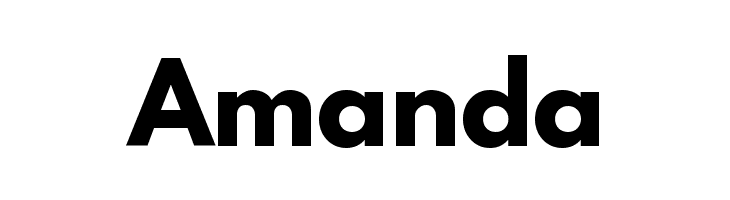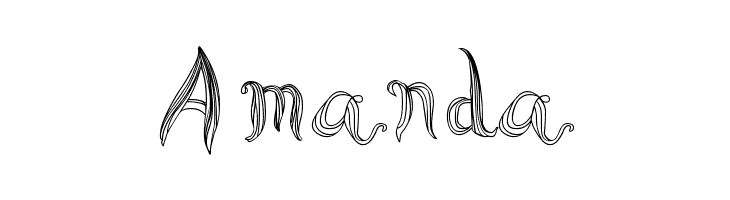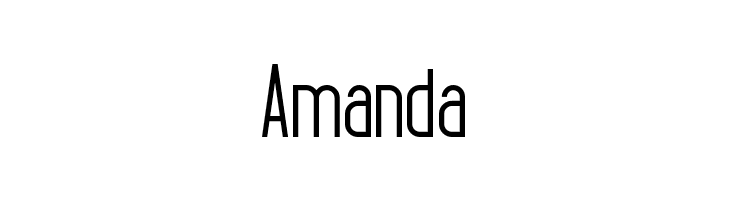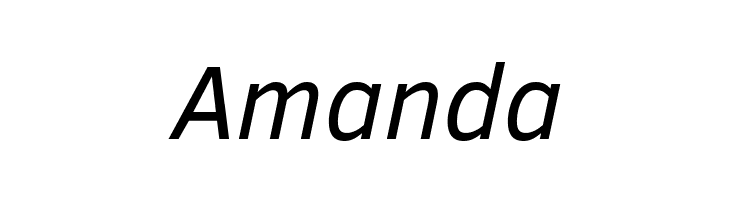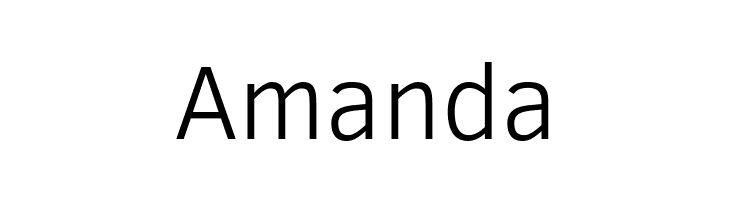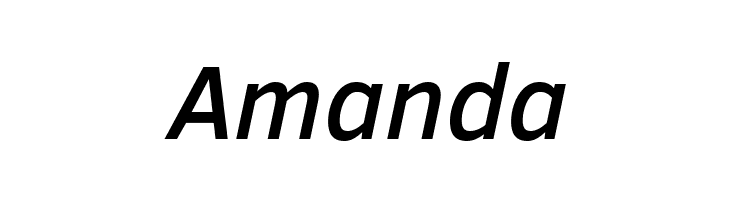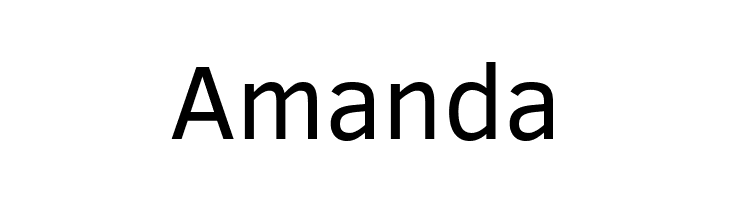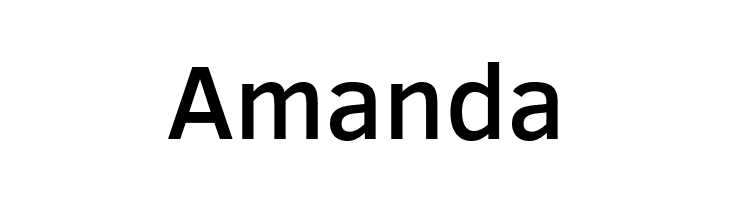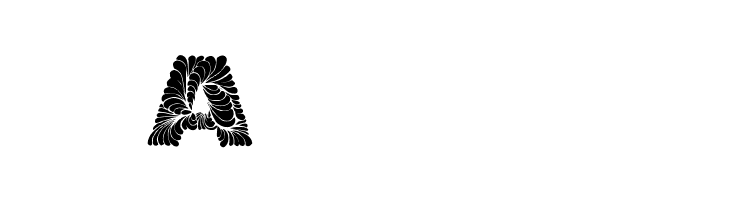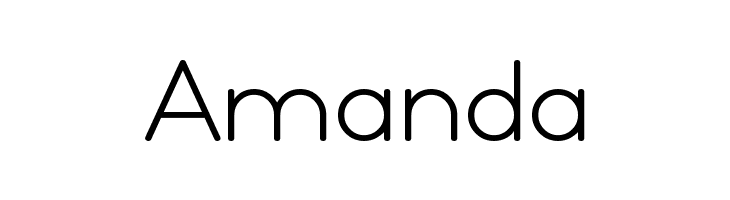
An artistic, leaf-inspired decorative font with fluid, organic strokes.
A playful, casual handwritten font with irregular strokes and a friendly vibe.
A decorative font with characters made of intricate leaf patterns.
A decorative font with intricate leaf patterns in each character.
A decorative font with intricate leaf patterns within each character.
A playful, textured font with a fuzzy, pipe cleaner-like appearance.
A bold, playful font with a leaning, distressed style and quirky personality.
A decorative collection of leaf-themed symbols and icons.
A bold, hand-drawn font with a vintage, rustic charm.
A geometric, minimalist font with clean lines and open forms.
A playful, clear, and slightly italic handwritten font.
A modern, bold, and italicized font with a sleek and dynamic appearance.
A bold, italicized font with outlined characters and a modern aesthetic.
A bold, playful font with whimsical curves and clear readability.
A clean, elegant script font with flowing cursive letters and a sophisticated style.
An organic, textured font with jagged edges, resembling decaying leaves.
A bold, decorative stencil font with intricate leaf patterns.
A decorative font with intricate leaf patterns in each character.
A whimsical, nature-inspired font with leaf embellishments and flowing strokes.
A modern, italic sans-serif font with clean lines and balanced proportions.
Bold, narrow sans-serif font with a modern and clean style.
A playful font with cheerleader graphics and bold, uppercase letters.
A bold, modern sans-serif font with clean, geometric lines.
A bold, decorative font with clover leaf patterns for a playful touch.